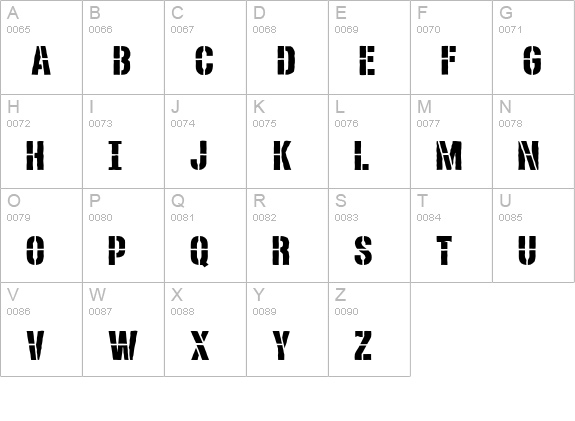
DieselStencil Rough Font Details
DieselStencil Rough font is a bold and edgy typeface that exudes a rugged and industrial feel. With its rough edges and strong presence, this font is perfect for creating eye-catching designs that demand attention. The unique stencil style adds a modern twist to any project, making it versatile for a variety of creative applications. The best part is, DieselStencil Rough font is completely free to download at FontsMarket.com. Whether you're working on a poster, logo, or website design, this font is sure to make a statement and leave a lasting impression. Don't miss out on the opportunity to add this dynamic font to your collection and take your designs to the next level.